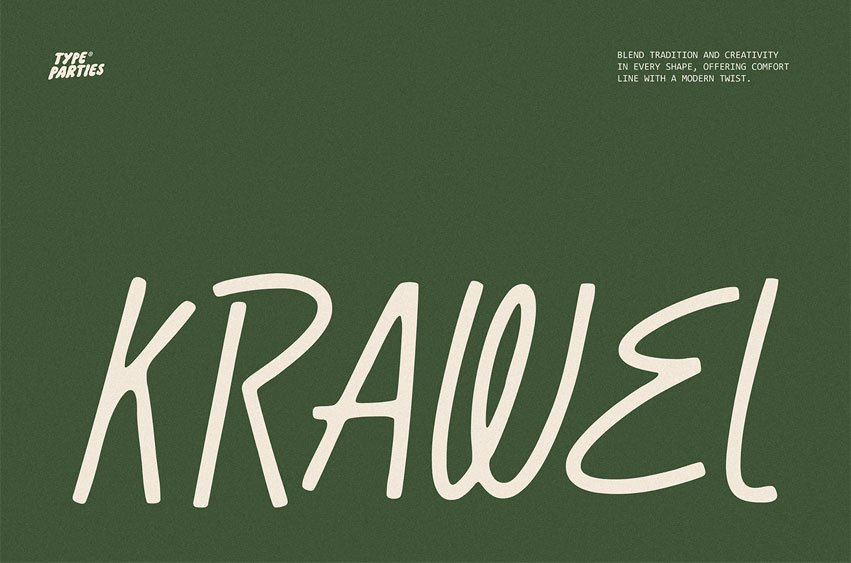
Krewel Font has a hand-drawn, playful, and slightly irregular style. The letters are tall, narrow, and loosely structured, giving them an organic and natural flow. Each stroke feels casual and spontaneous, creating a friendly and approachable personality.
The slight inconsistencies in the shapes add charm and character, making the typeface feel authentic and handcrafted.